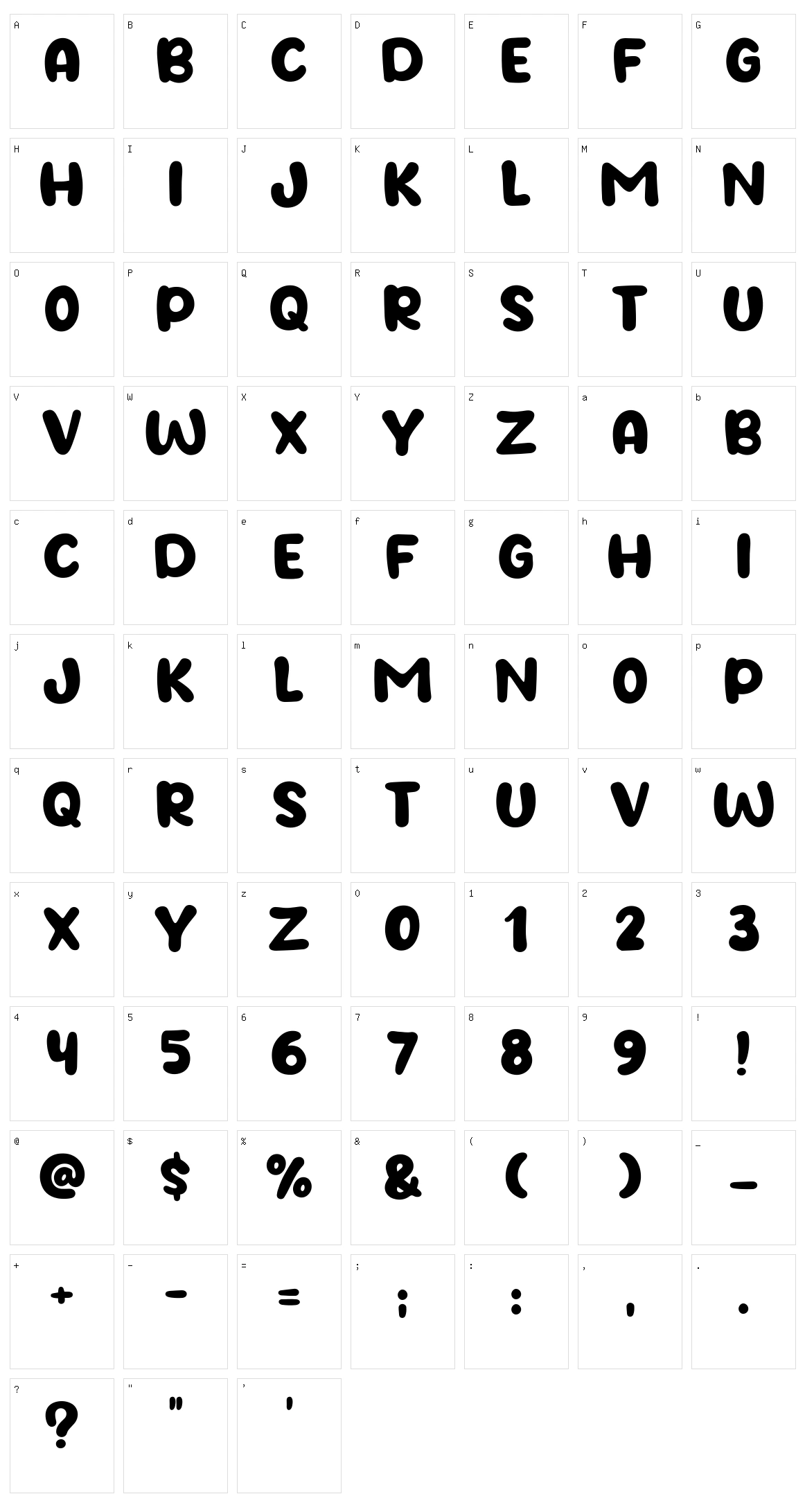
The free font Apple Days is carefully designed by Khurasan, showcasing a thoughtful balance of creativity and usability and falls under the Cartoon font style. When you download the ZIP file, it contains only 318.87 KB of font files, making it lightweight and quick to download. Please review the license details below to understand permitted usage and distribution rights. If license information is not available, we recommend using this font for personal projects only or contacting the author directly for commercial usage permissions.